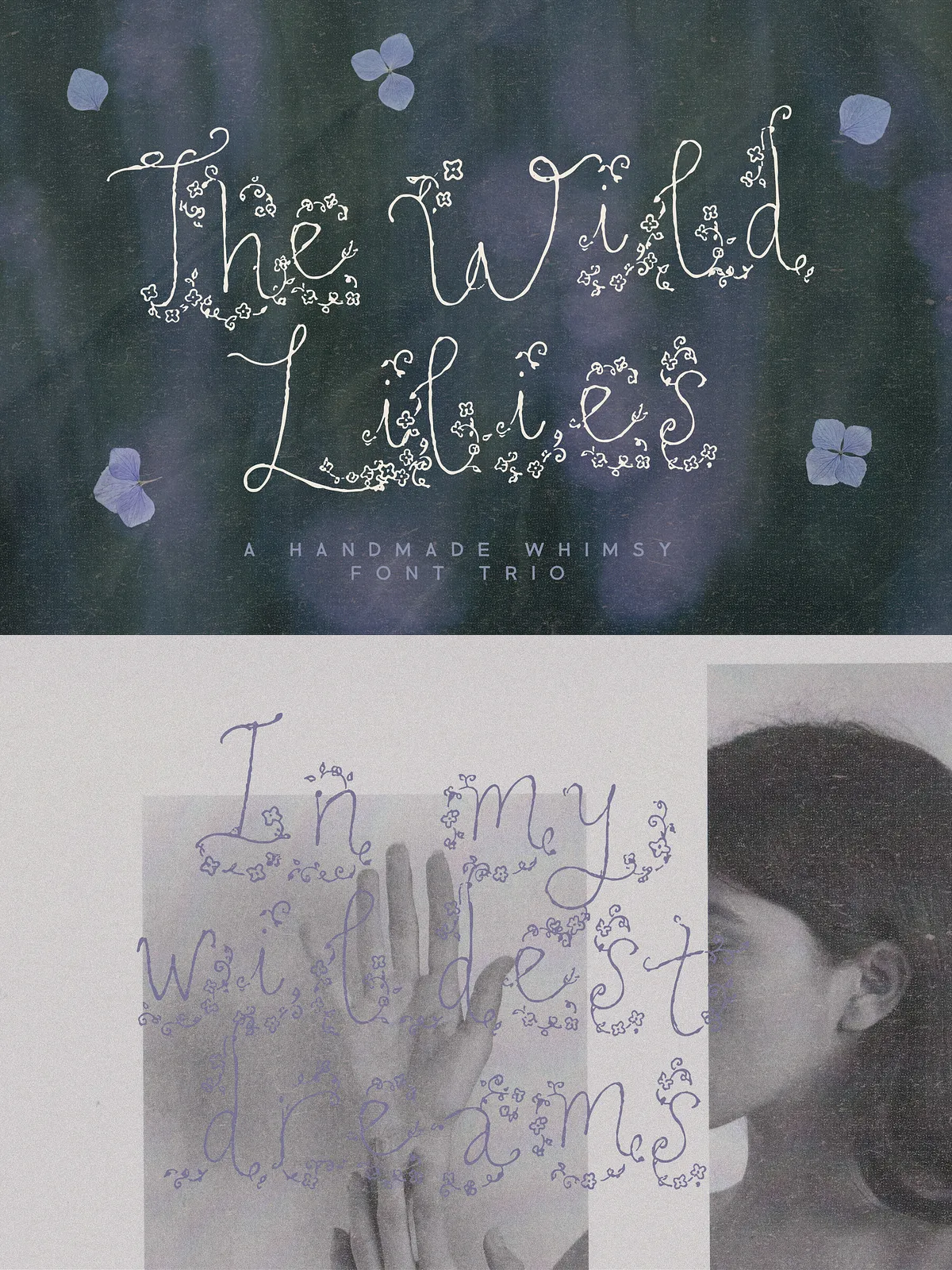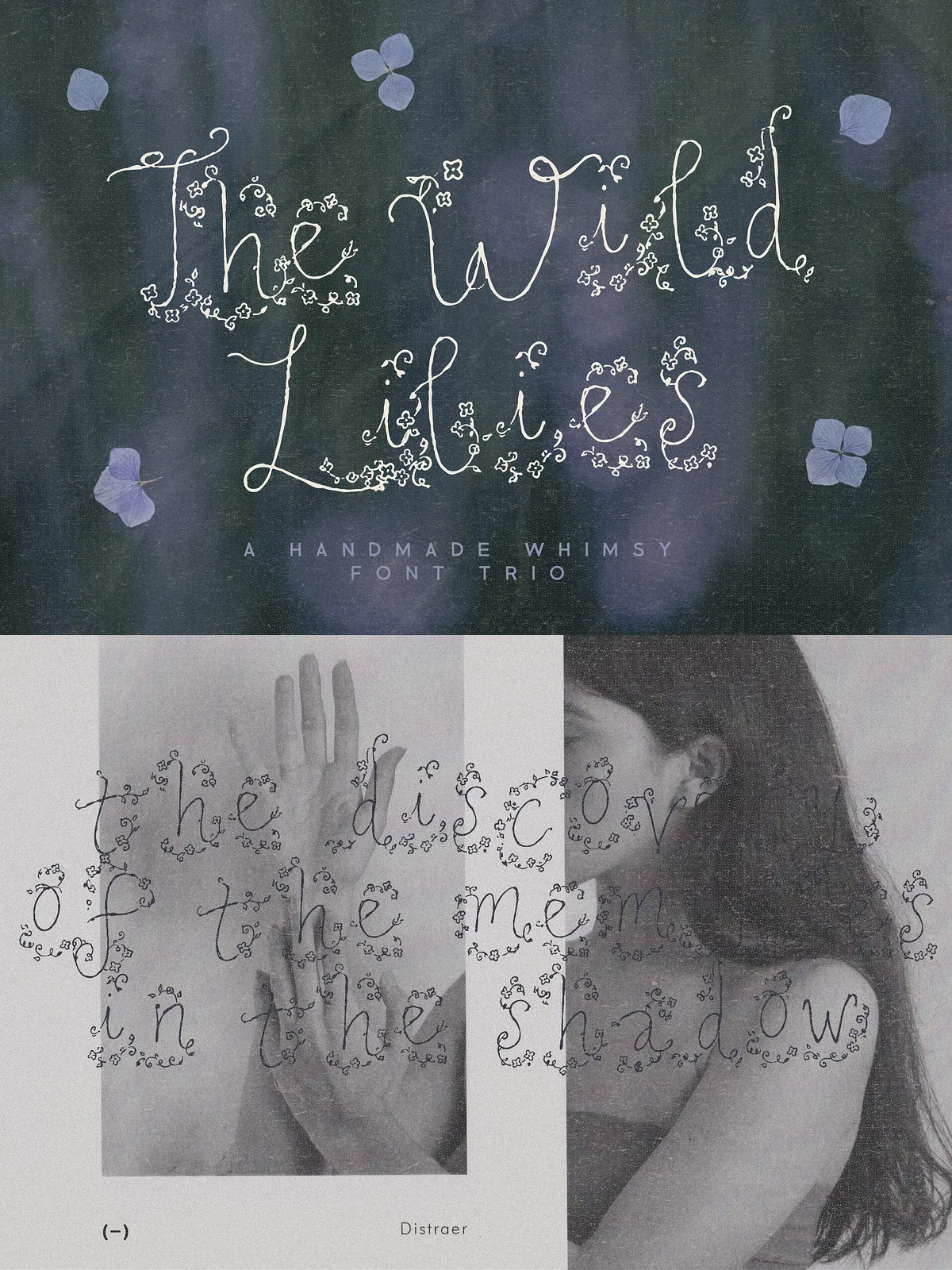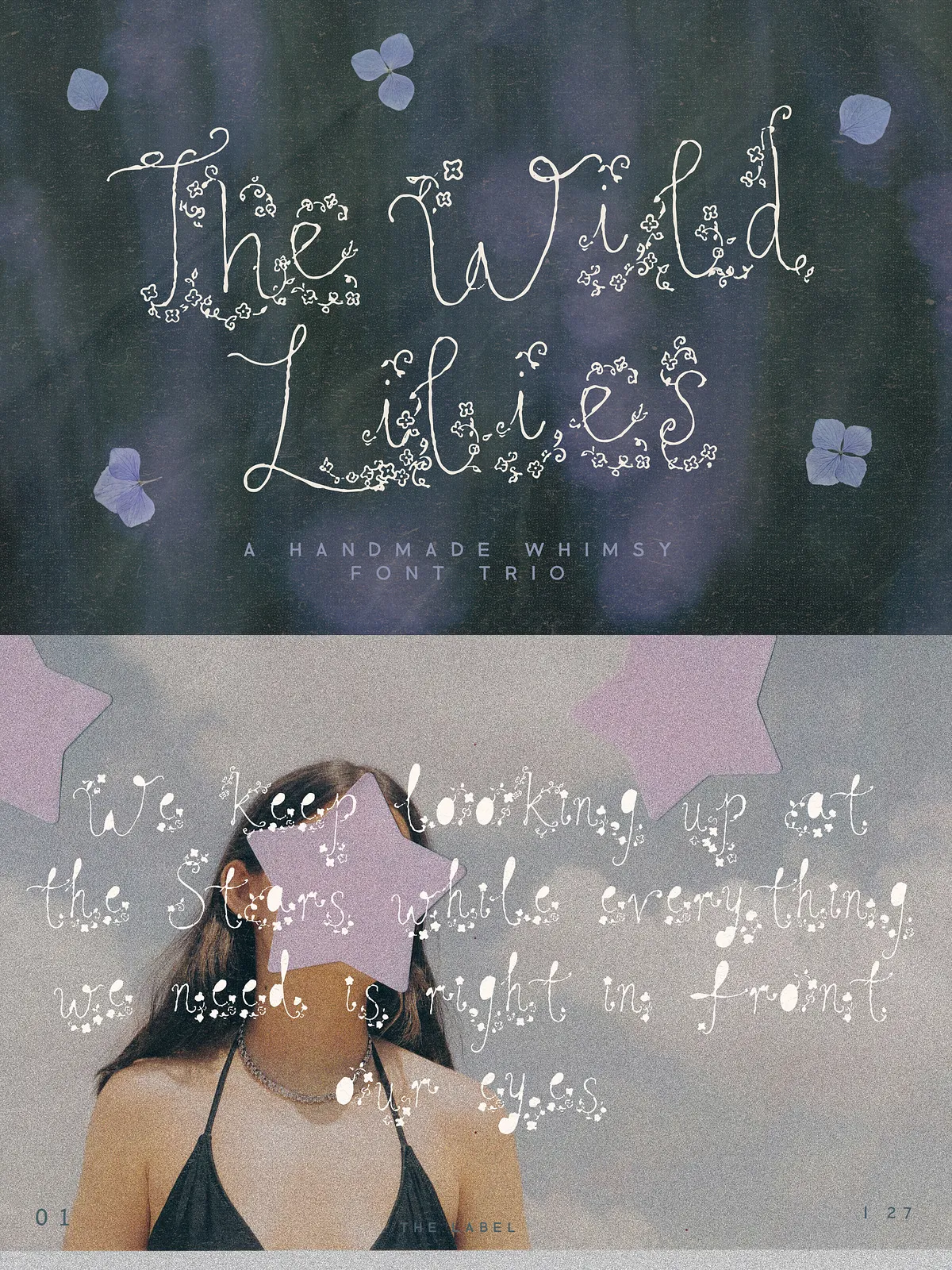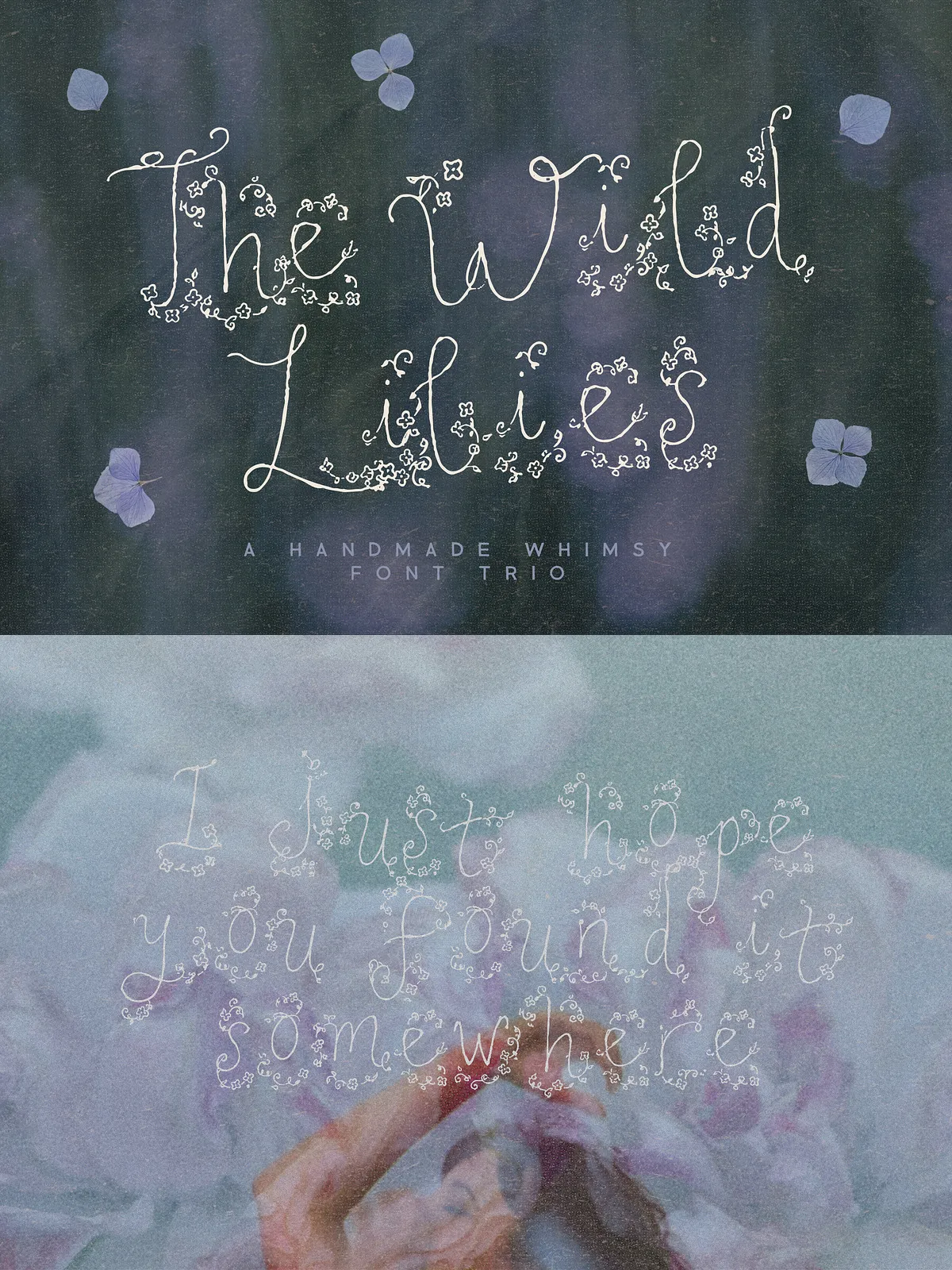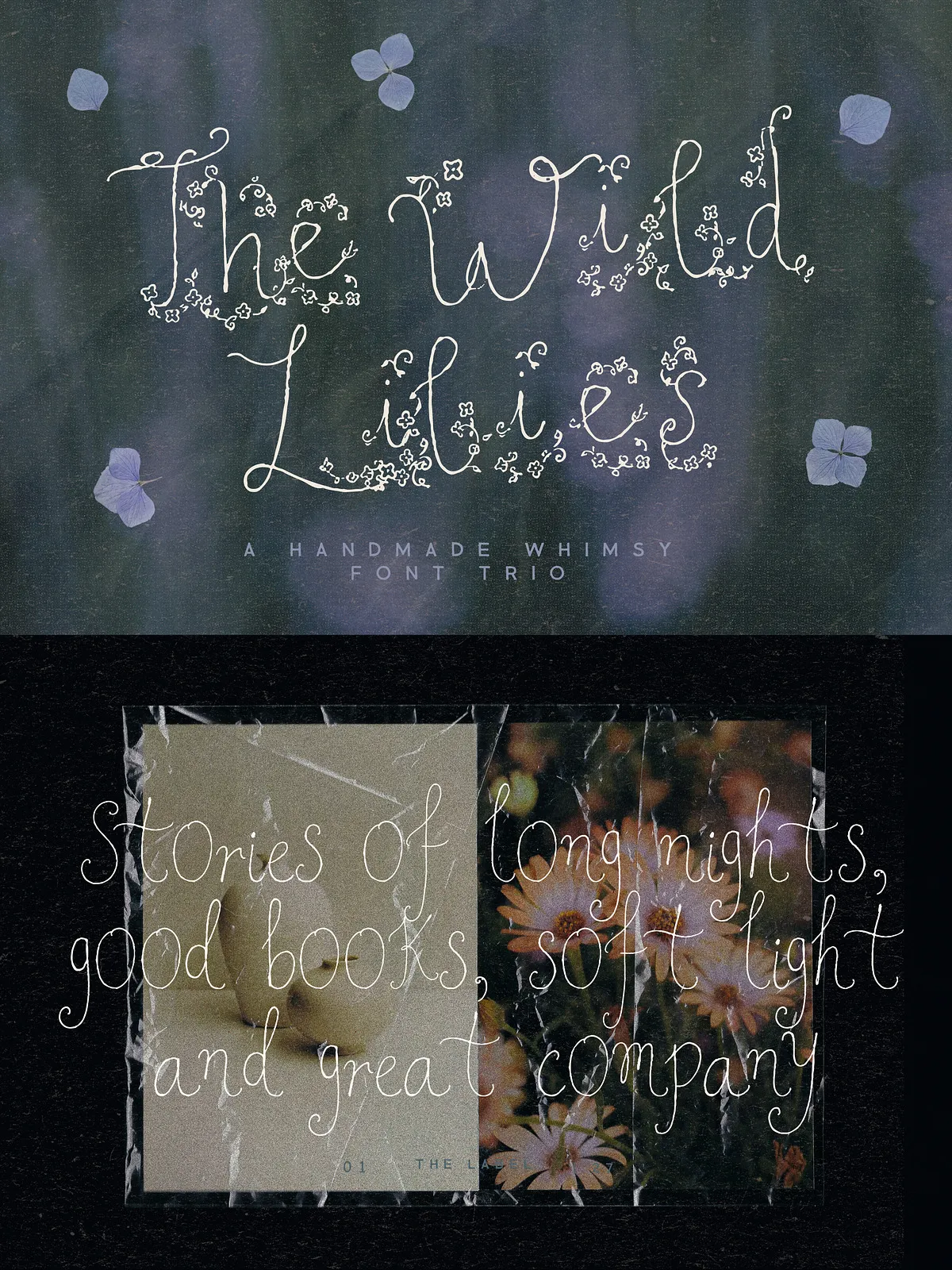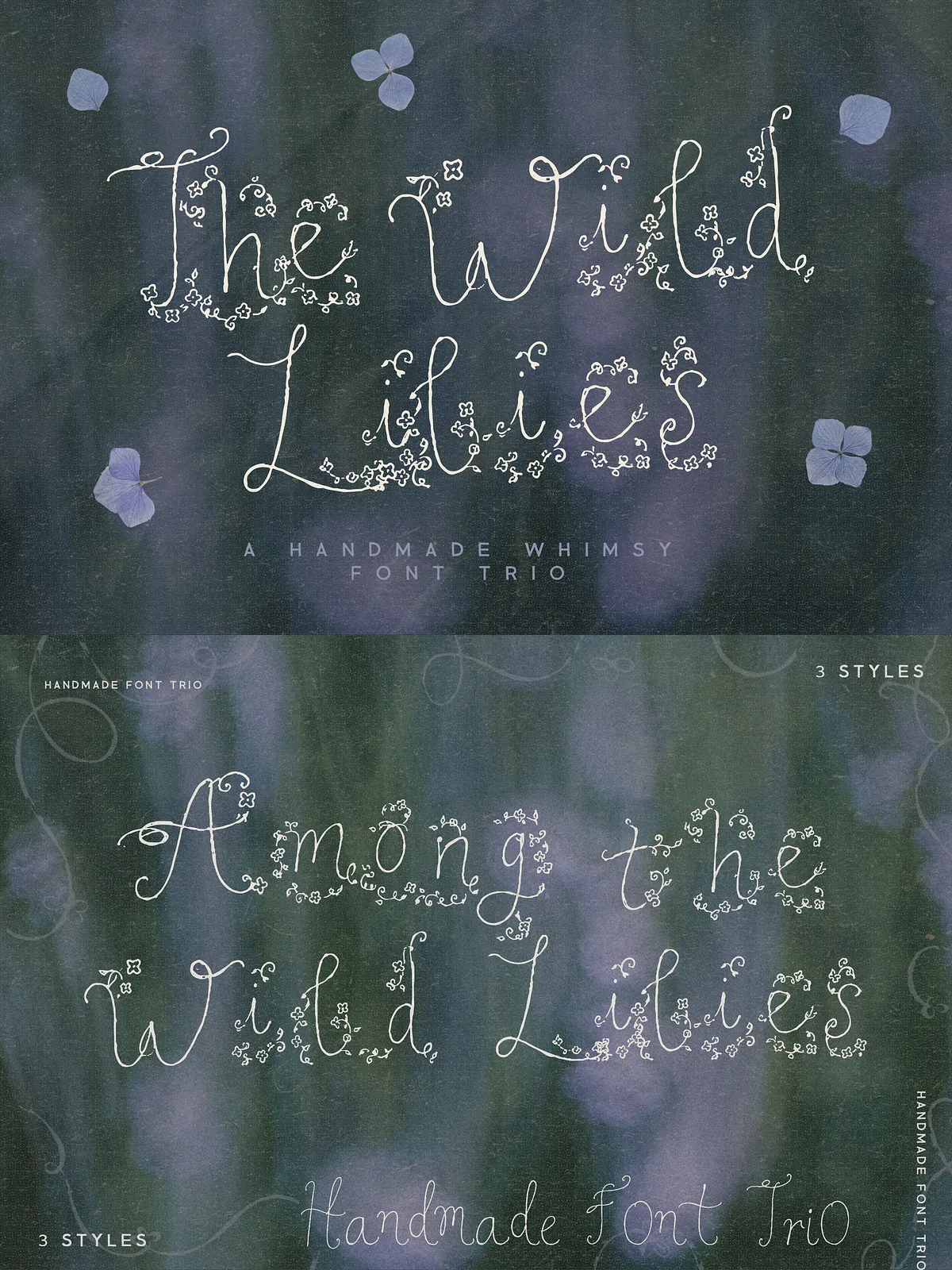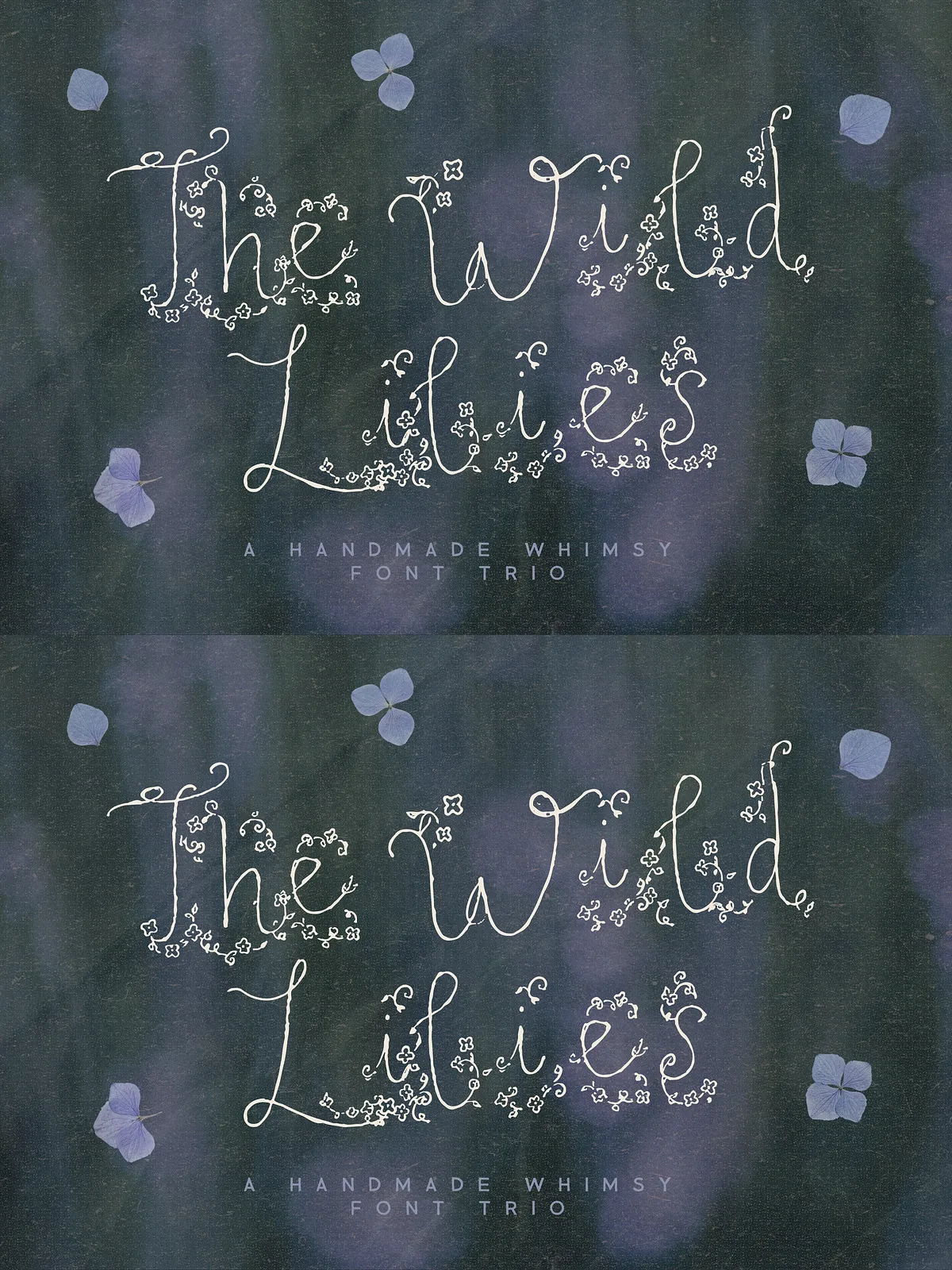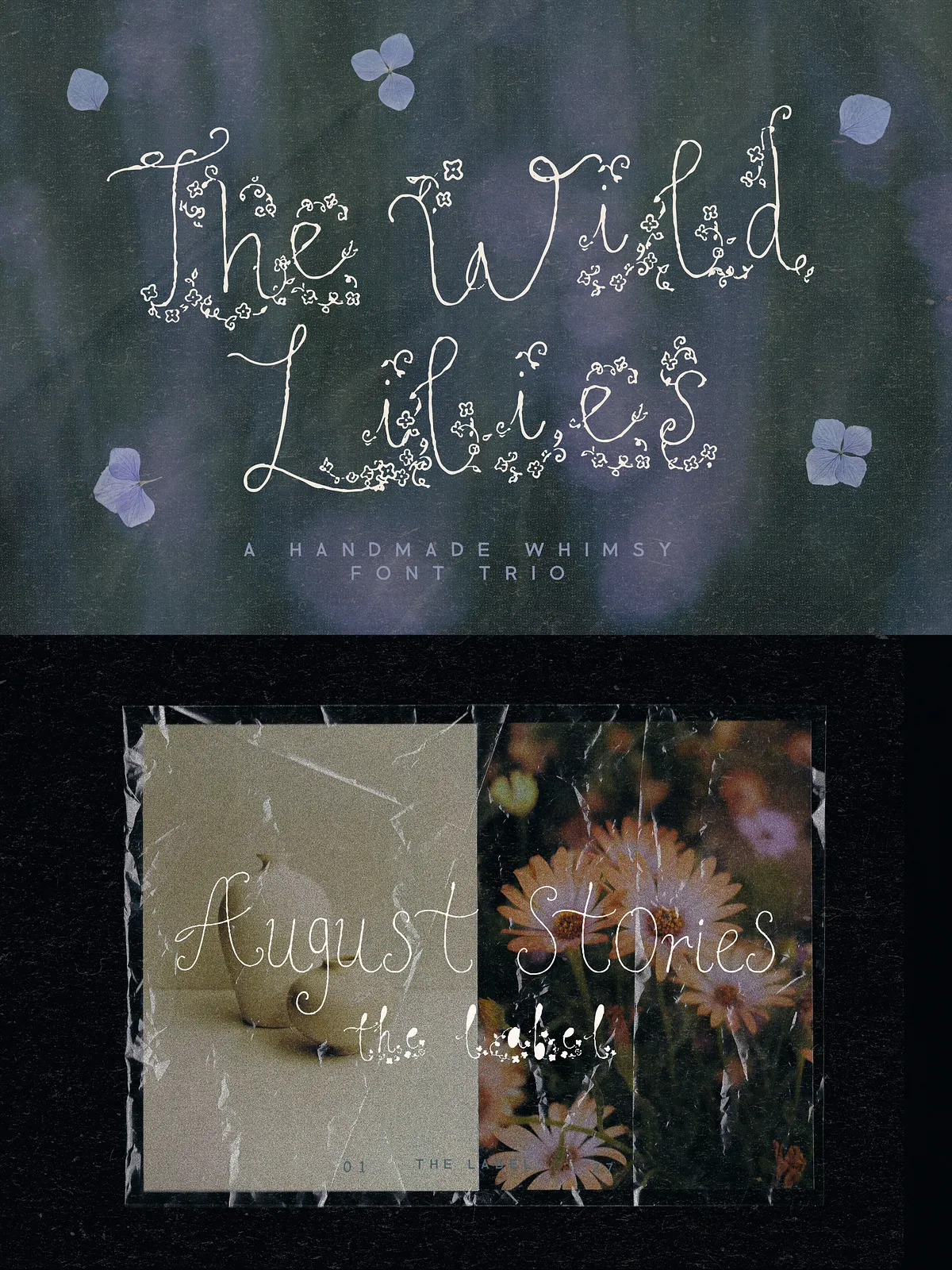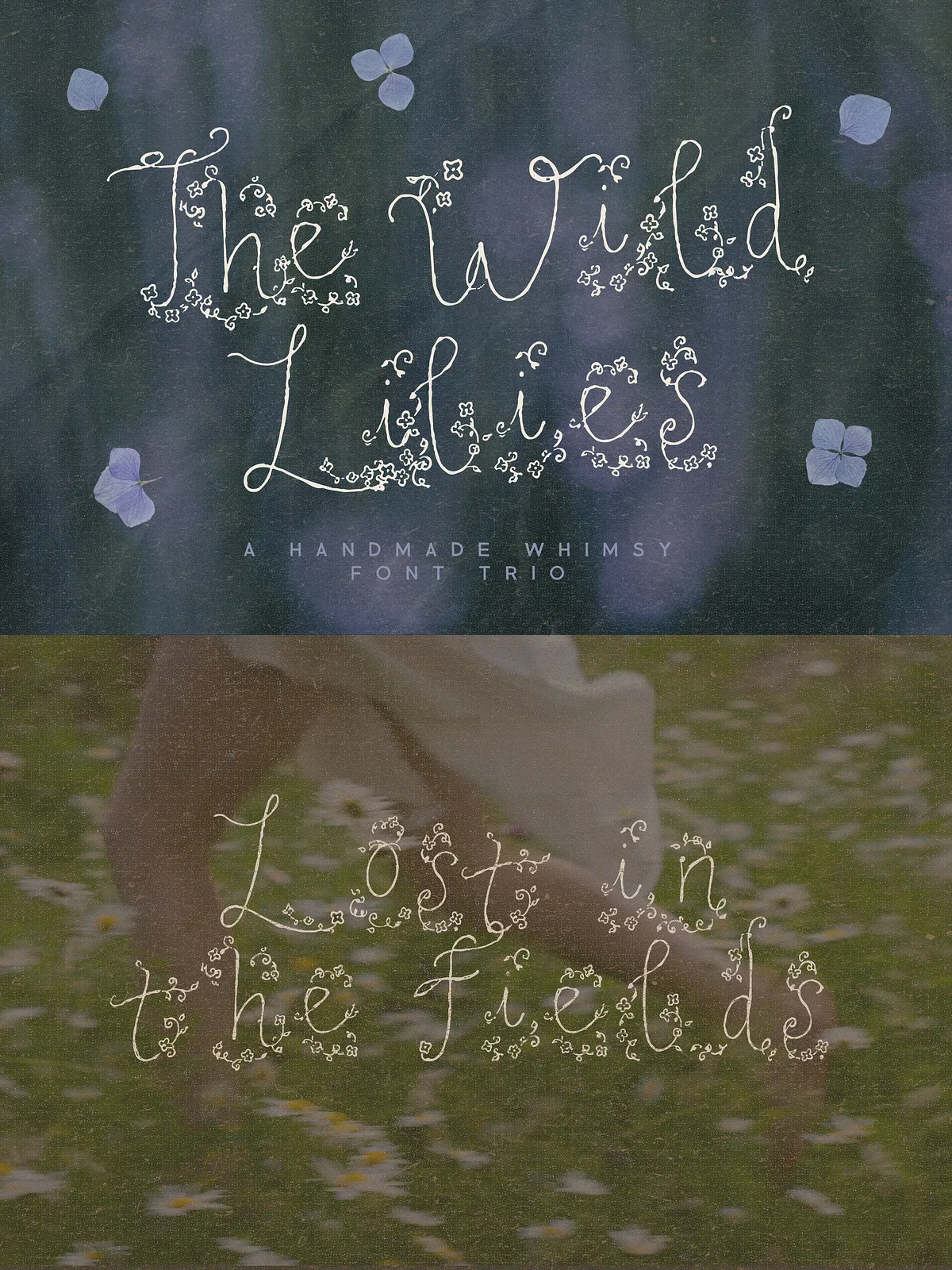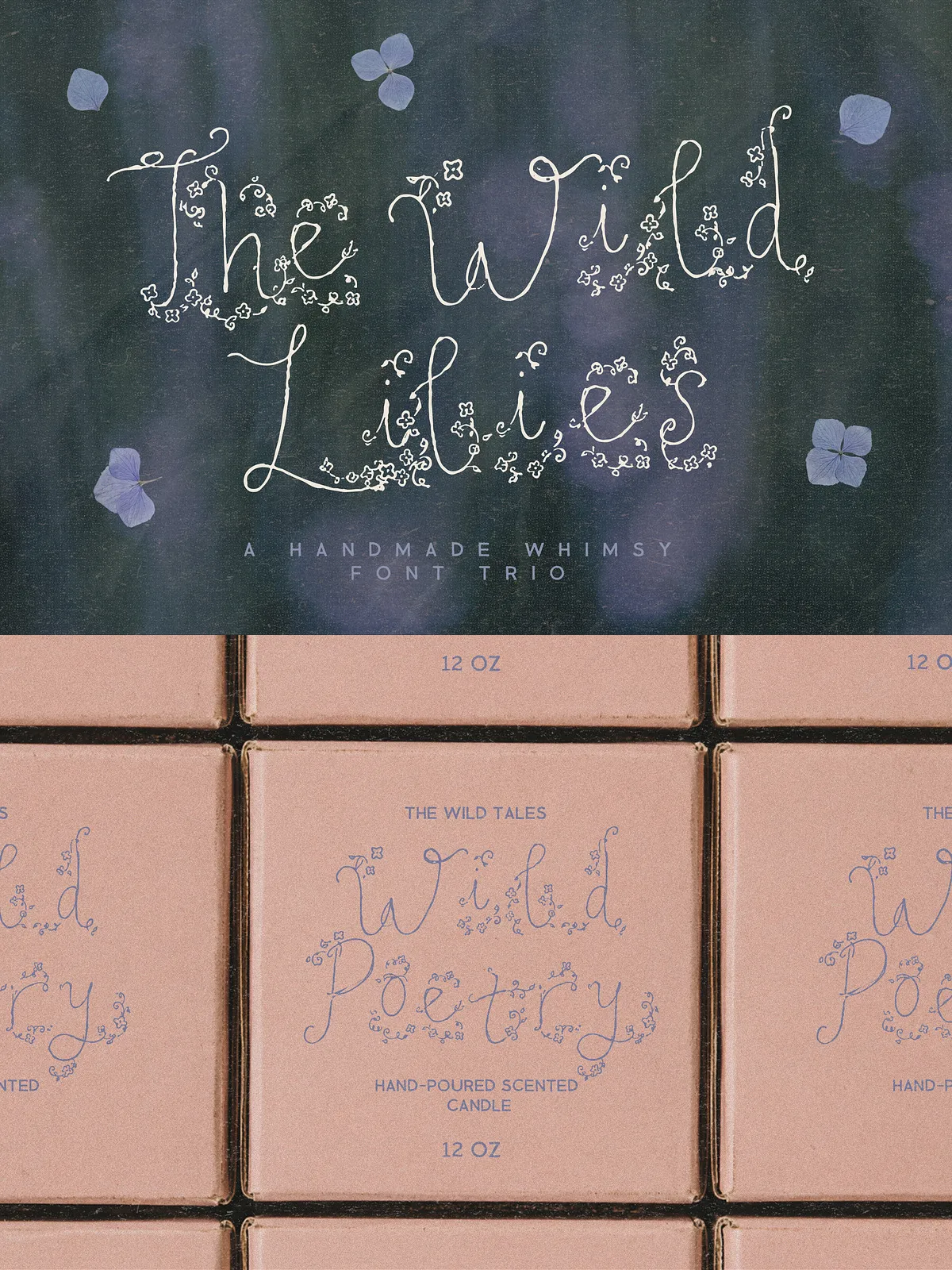
Wild Lilies is a three-style script family crafted to bring poetic charm and a touch of mystery to your designs. Each style delivers a distinct voice: a decorative floral script blooming with hand-drawn ornamentation, a clean whimsical script for wide usability, and a bold cut-out variation for striking editorial statements. The trio works cohesively when layered and pairs beautifully with neutral serifs or minimal sans-serif typefaces. Use Wild Lilies to communicate romance, playfulness, or a darker, more dramatic mood — it adapts to projects that need both delicacy and attitude.
- WildLilies.Otf — Decorative floral script with blooming letter details and floral ornaments for expressive headlines and monograms.
- WildLilies-Cutout.Otf — Bold, bubbled cut-out style for editorial layouts, striking covers, and creative lockups.
- WildLilies-Clean.Otf — Clean yet whimsical script optimized for legibility and flexible use across digital and print work.
Distinctive Floral Ornamentation
The primary WildLilies style includes hand-drawn floral flourishes that turn ordinary words into decorative artwork. Use these details to create bespoke logos, decorative initials, or intricate wedding monograms.
Layerable Trio for Rich Typographic Texture
Combine the floral, cut-out, and clean styles to build layered effects: place the floral script over the cut-out base to add depth, or overlay the clean script for subtle emphasis. The trio encourages experimentation and produces rich typographic textures quickly.
High Legibility and Display Performance
Although richly decorated, each style maintains strong letterforms for clear reading at display sizes. The cut-out version offers a bold silhouette for covers and posters, while the clean script functions reliably for subheadings and short paragraphs.
Versatile Aesthetic Range
Wild Lilies spans a wide tonal range — from light and romantic to dark and moody. It suits wedding invites, boutique branding, greeting cards, poetry prints, book covers, and social media campaigns that seek an emotional, handcrafted voice.
Ideal Use Cases
- Wedding stationery and invitations — create romantic headings and monograms that feel handcrafted.
- Boutique logos and packaging — give artisanal products an identity with floral charm.
- Book covers and poetry prints — evoke atmosphere and narrative with expressive headlines.
- Editorial spreads and album covers — use the cut-out style for bold compositions and layered typographic art.
- Greeting cards, social graphics, and merchandise — apply the clean script for adaptable, readable messages.
Pairing & Design Tips
Build Hierarchy with Style Contrast
Use the cut-out style for primary headings, the floral script for decorative accents and initials, and the clean script for secondary headings or taglines. Contrasting weight and decoration will create clear hierarchy and visual interest.
Color and Texture
Pair warm, muted color palettes with the floral script for a vintage romance feel. For a darker aesthetic, choose deep jewel tones and high-contrast backgrounds to make the floral details pop. Subtle paper grain or watercolor textures enhance authenticity.
Spacing and Scale
Increase tracking slightly when using the floral script at large sizes to preserve ornament clarity. Tighten tracking for the cut-out style to maintain a strong silhouette. Always test at intended output size to ensure ornament legibility.